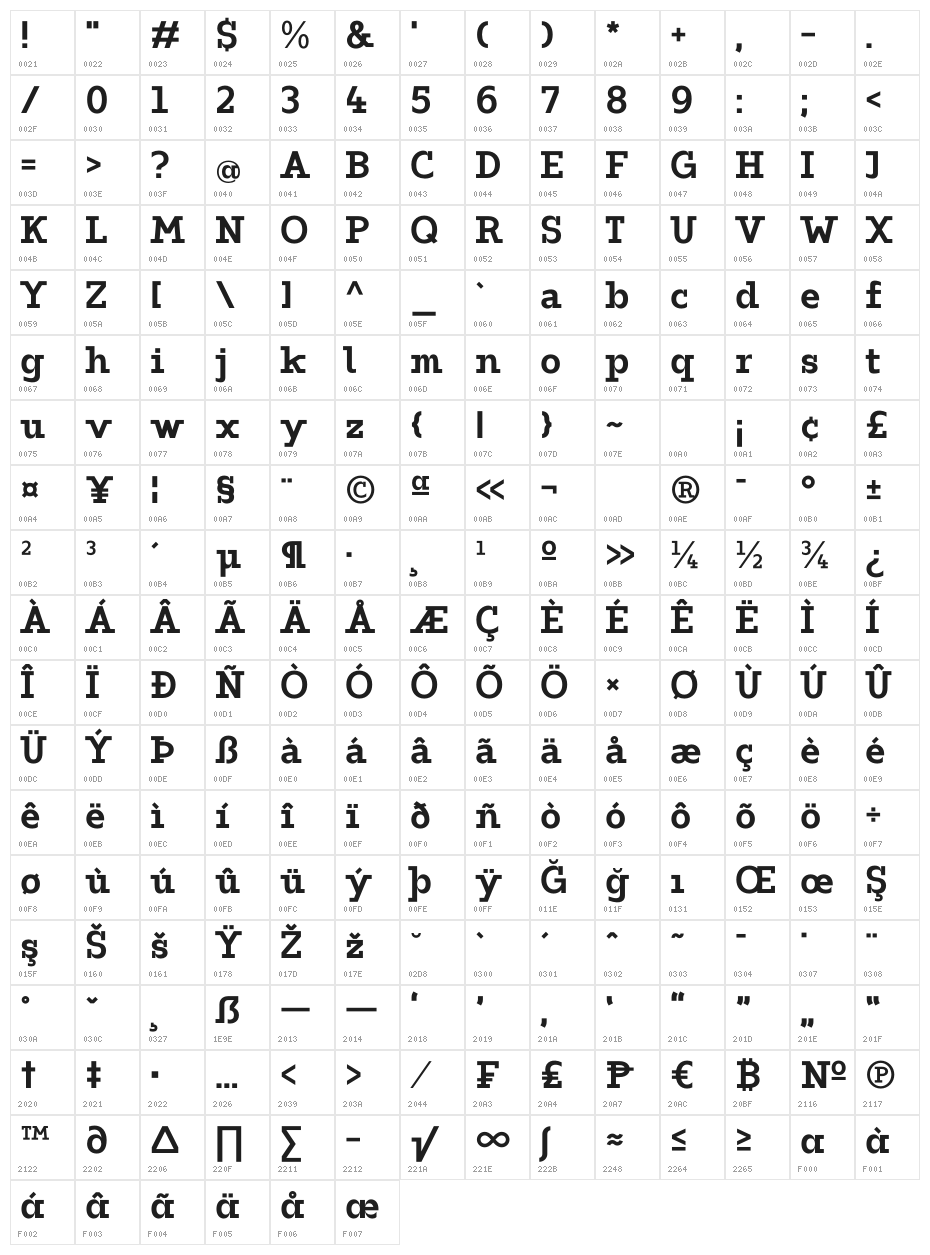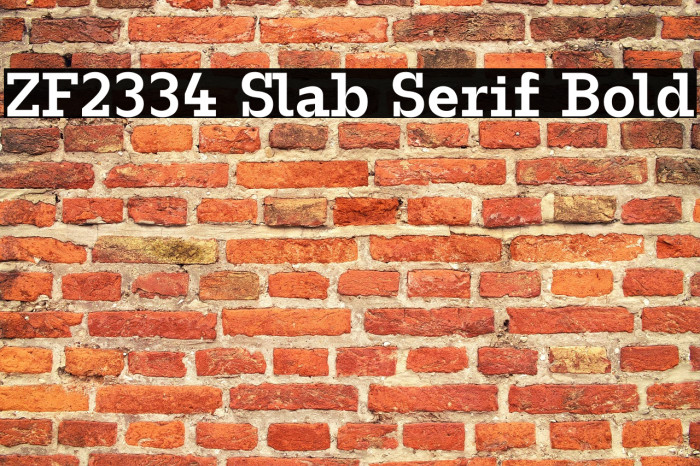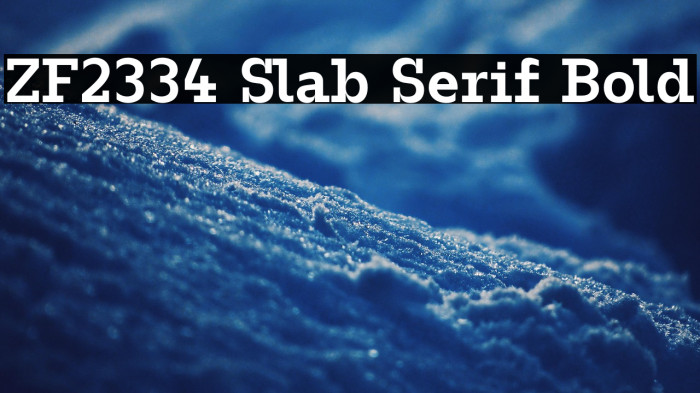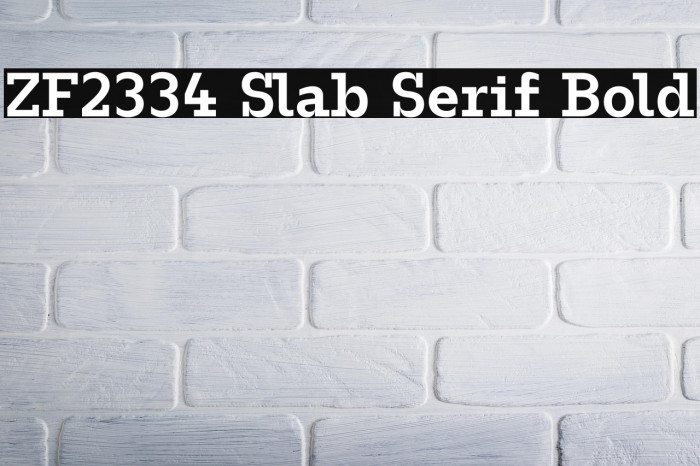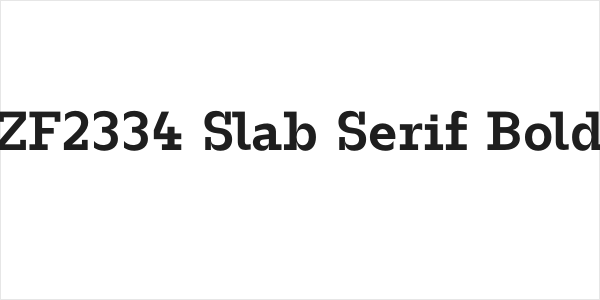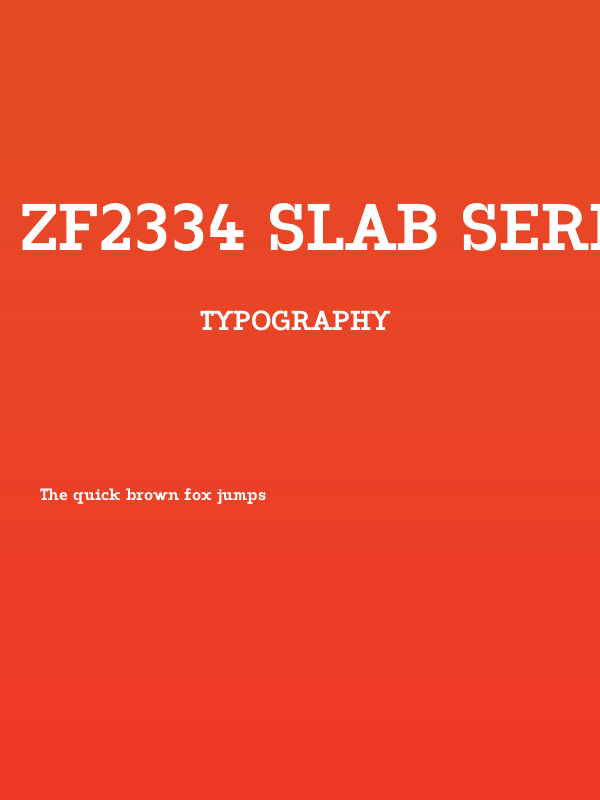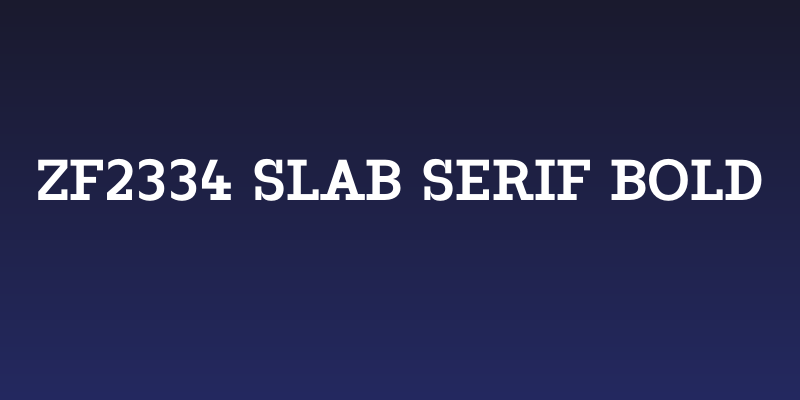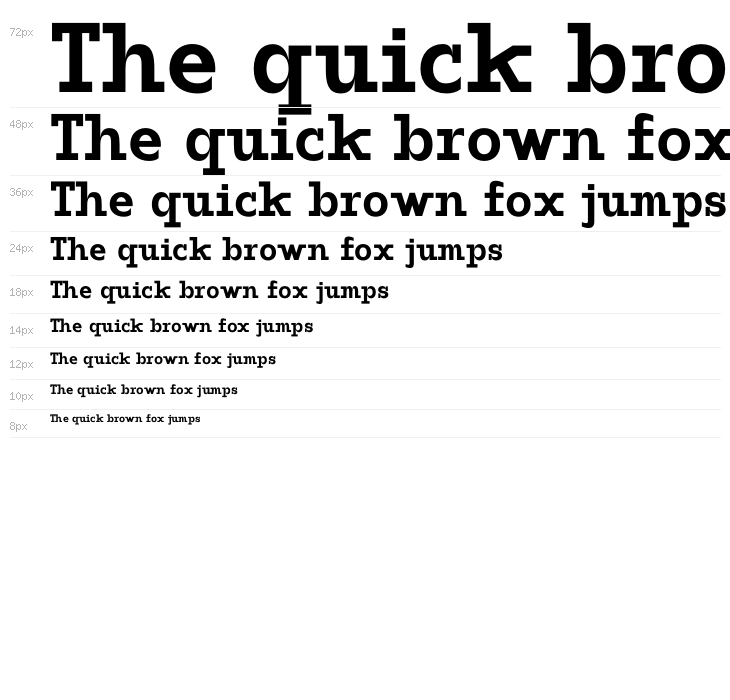
ZF2334 Slab Serif Bold Font
ZF2334 Slab Serif Bold Description
A bold slab serif font with strong, rectangular serifs and uniform stroke widths, providing a robust and impactful appearance.
| Proposed Projects | Posters, headlines, branding, logos. |